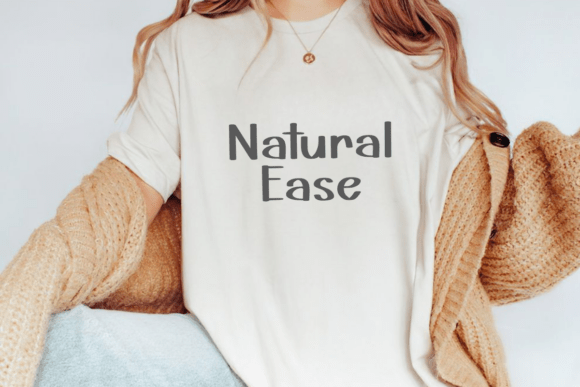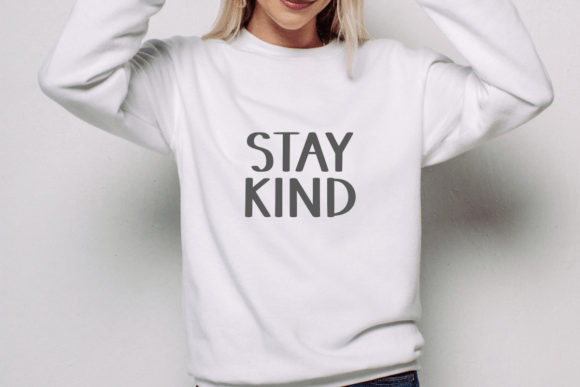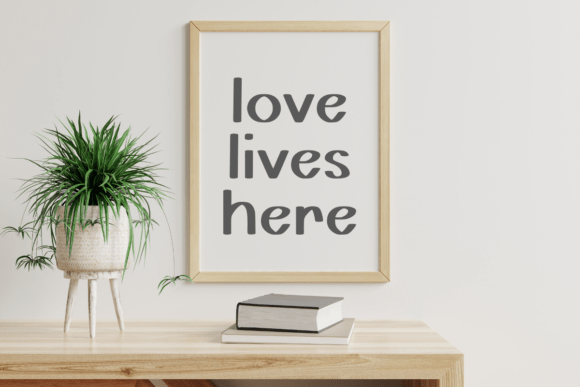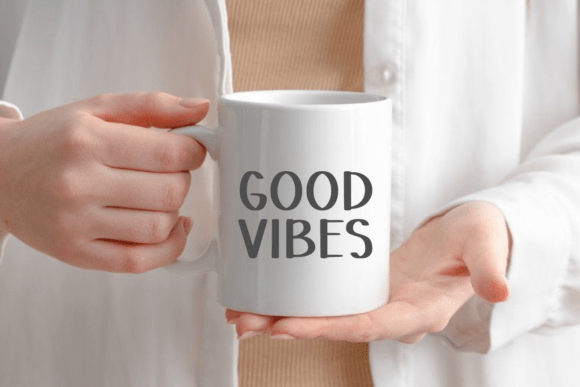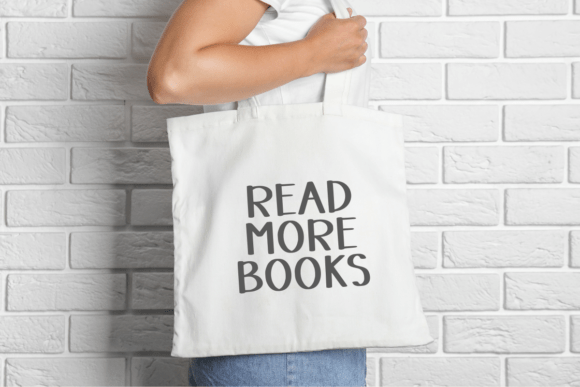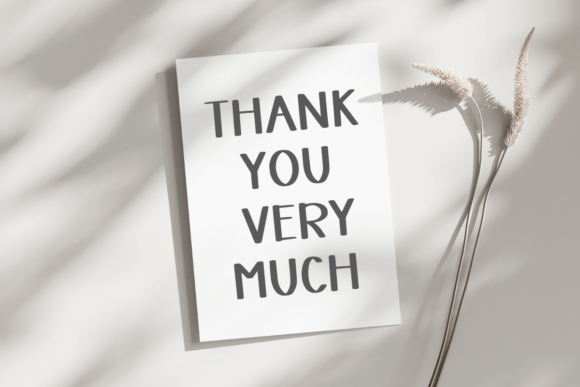
The Magic of Golden Memory Font: A Designer’s New Best Friend
I still remember the day I stumbled upon the perfect font for my craft project. I was working on a custom party invitation for my niece’s birthday, and I just couldn’t find the right fit. That was until I discovered the Golden Memory font. Its soft, friendly, and natural look instantly captured my heart, and I knew I had found my new go-to font. In this article, I’ll share my experience with Golden Memory, its features, and how to make the most of it in your designs.
A Personal Review: What I Love About Golden Memory
Here’s what makes Golden Memory a standout font:
- ✨ Adorable Handwritten Style: Golden Memory has a warm, handcrafted feel that adds a personal touch to any project.
- ✅ Ease of Use: Its simple strokes and smooth curves make it easy to cut using Cricut and Silhouette, perfect for crafting moms.
- ✨ Versatility: Use Golden Memory for quotes, greeting cards, kids’ labels, coloring pages, worksheets, bullet journals, scrapbooks, and more.
While Golden Memory is an amazing font, there are a few things to keep in mind:
- ⚠️ Limited Formality: Golden Memory is a casual, handwritten font, so it might not be the best fit for formal or professional projects.
- 🤔 Legibility at Small Sizes: Like many handwritten fonts, Golden Memory can be a bit tricky to read at very small sizes.
The Story Behind Golden Memory
Golden Memory was designed with love and care by a team of creatives who wanted to bring a touch of warmth and personality to digital and print designs. Inspired by traditional handwriting and the nostalgia of childhood memories, Golden Memory aims to make your designs feel more approachable and friendly.
| What type of projects is Golden Memory best suited for? | Golden Memory is perfect for craft projects, planners, stickers, kids’ worksheets, classroom printables, DIY designs, and more. |
| Is Golden Memory easy to read? | Golden Memory is generally easy to read, but like many handwritten fonts, it can be challenging at very small sizes. |
| Can I use Golden Memory with my Cricut or Silhouette machine? | Absolutely! Golden Memory’s simple strokes and smooth curves make it easy to cut with Cricut and Silhouette machines. |